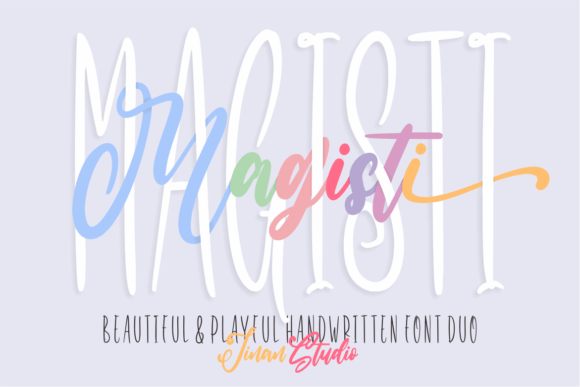
Introducing Magisti Duo, a Striking Duo Font That Will Ignite Your Designs!
Magisti Duo is not your average font; it's a visual masterpiece that will transform your creative projects into breathtaking works of art. This captivating duo font, consisting of a graceful script and a modern sans serif, is designed to add a touch of elegance and charm to any design endeavor.
From heartfelt greeting cards to eye-catching headlines, Magisti Duo is the perfect choice for designers seeking a font that speaks to the soul. Its romantic and sophisticated aura will elevate your designs to new heights, evoking emotions that linger in the hearts of your audience.
Crafted with meticulous attention to detail, Magisti Duo features a seamless harmony between its script and sans serif counterparts. The delicate strokes of the script dance across the page, creating an enchanting allure that is sure to captivate. Meanwhile, the sans serif complements the script beautifully, providing a sturdy foundation and a touch of contemporary flair.
Unleash Your Creativity with Endless Possibilities
Whether you're a seasoned designer or just starting your creative journey, Magisti Duo is the perfect font to unlock your imagination. Its versatility knows no bounds, making it suitable for an array of projects:
- Craft heartfelt greeting cards that convey your deepest emotions.
- Design stunning logos that exude sophistication and elegance.
- Create captivating social media posts that leave a lasting impression.
- Craft beautiful wedding invitations that reflect the love and joy of your special day.
- Design eye-catching posters and flyers that demand attention.
Embark on a Creative Adventure with Magisti Duo!
Don't settle for ordinary fonts; embrace the extraordinary with Magisti Duo. Its enchanting beauty and versatility will transform your designs into masterpieces that resonate with your audience. Let your creativity soar and let Magisti Duo guide you on an artistic journey like no other.
Experience the allure of Magisti Duo today and unlock the gateway to captivating designs that leave an indelible mark on the hearts of those who behold them.